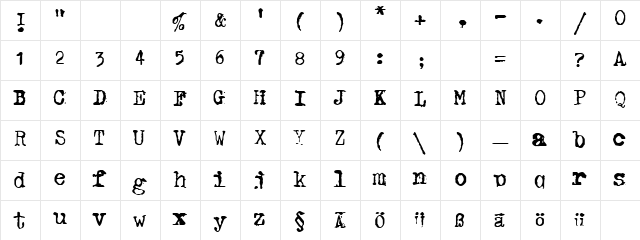
GF Halda Smashed Normal
Design Context for GF Halda Smashed Typeface
GF Halda Smashed is a composed and adaptable typeface that performs quietly and consistently across a wide range of design contexts.